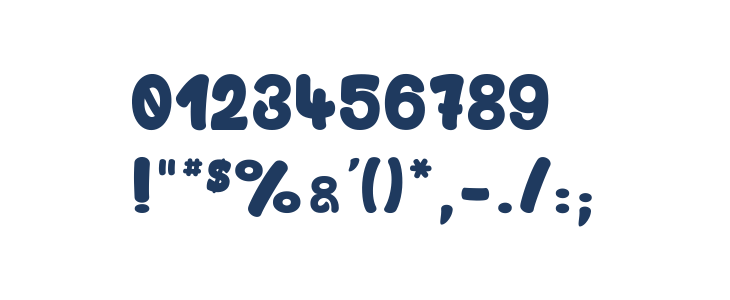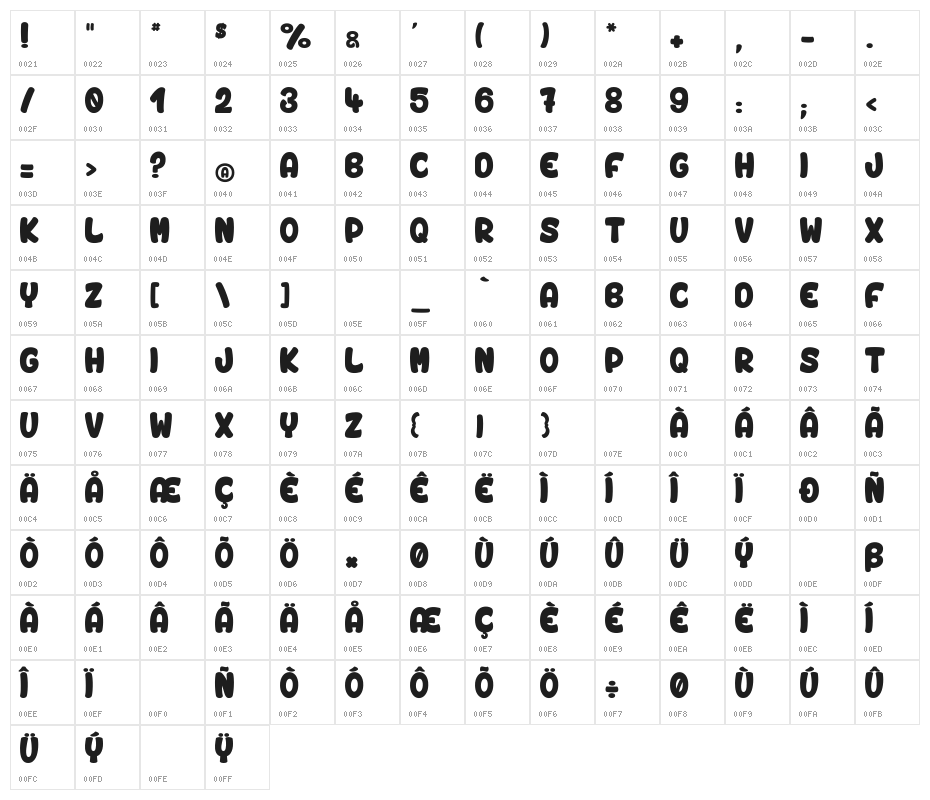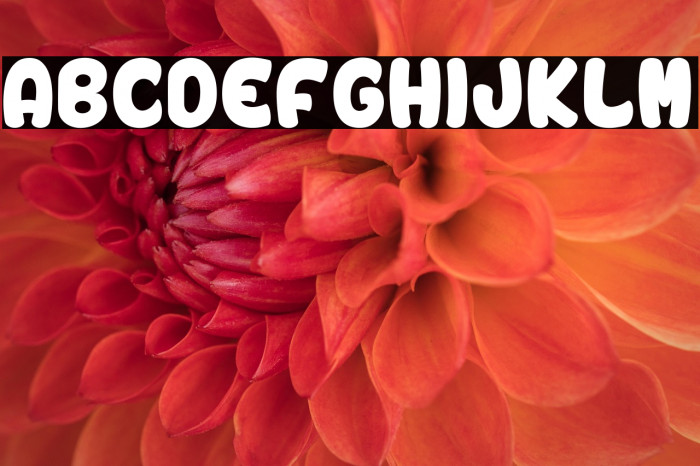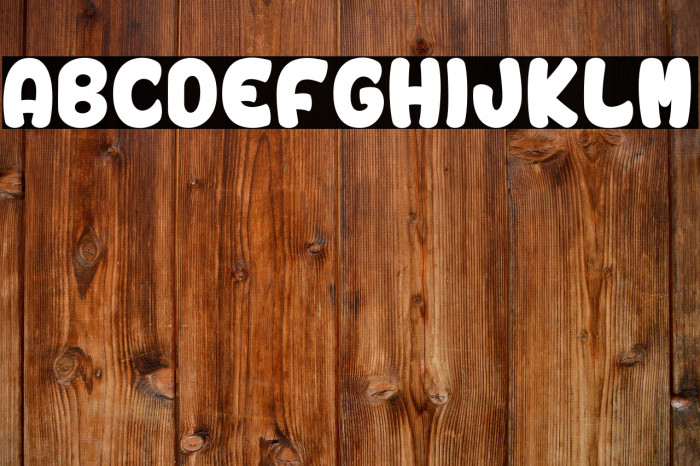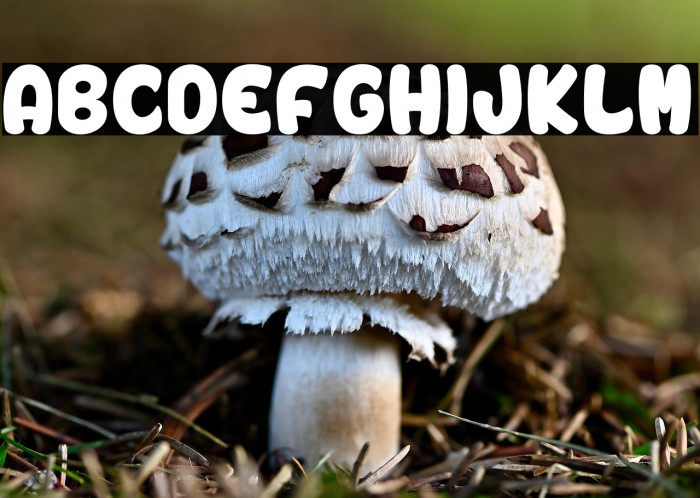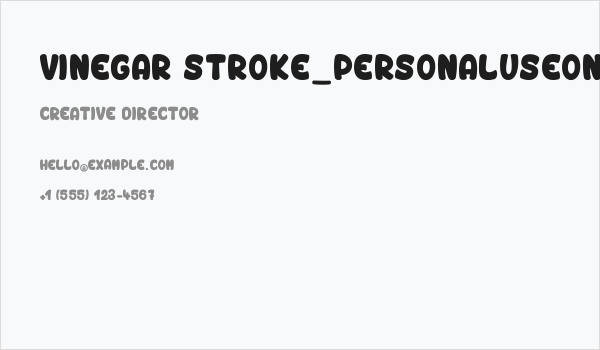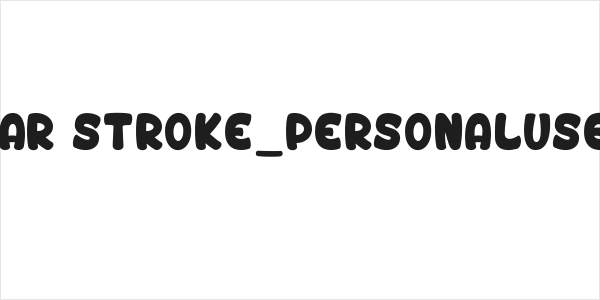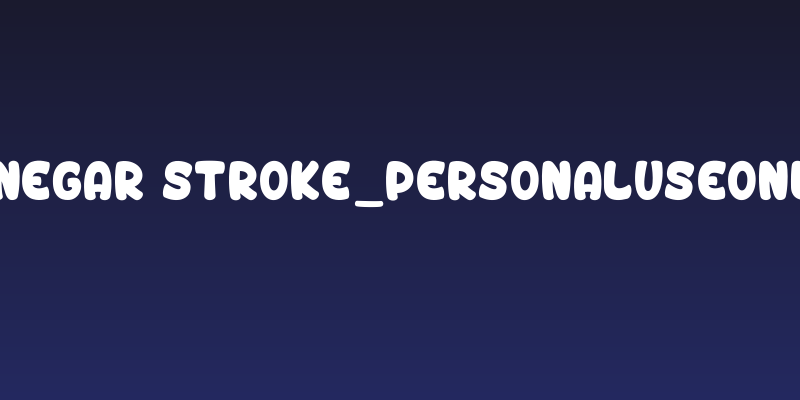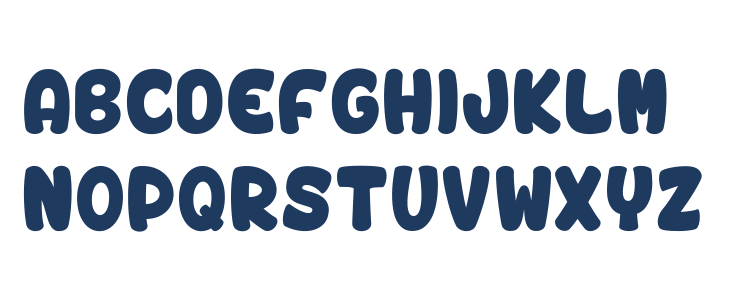
Vinegar Stroke_PersonalUseOnly Font
Vinegar Stroke_PersonalUseOnly Description
This playful and bold font features rounded, bubble-like characters that exude a sense of fun and creativity. The letters are thick and uniform, with a consistent stroke width that gives them a solid appearance. The rounded edges and lack of sharp angles contribute to a friendly and approachable feel. The numbers and special characters maintain the same bubbly style, ensuring a cohesive look across all elements. This font is ideal for projects that require a touch of whimsy and boldness, such as children's books, playful branding, or eye-catching headlines.
| Overall Style | Playful, Fun, Bold |
| Proposed Projects | Children's books, playful branding, eye-catching headlines, posters, and party invitations. |